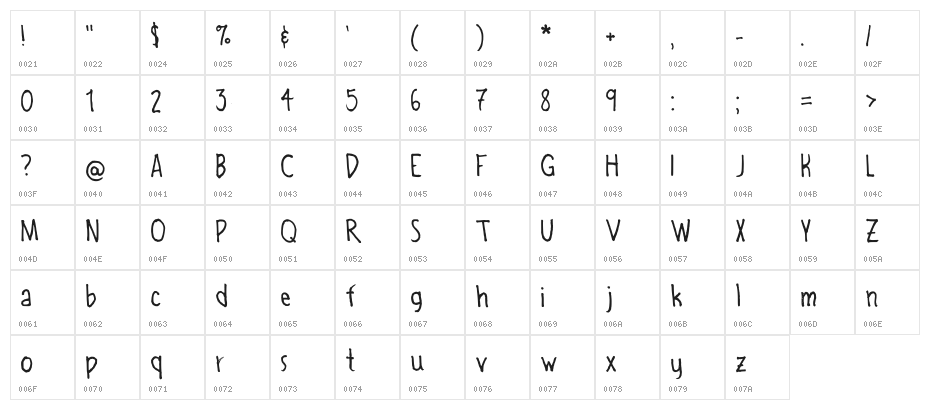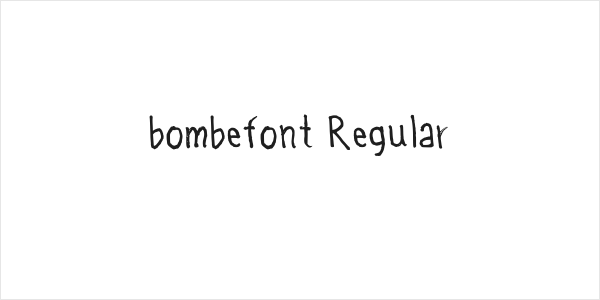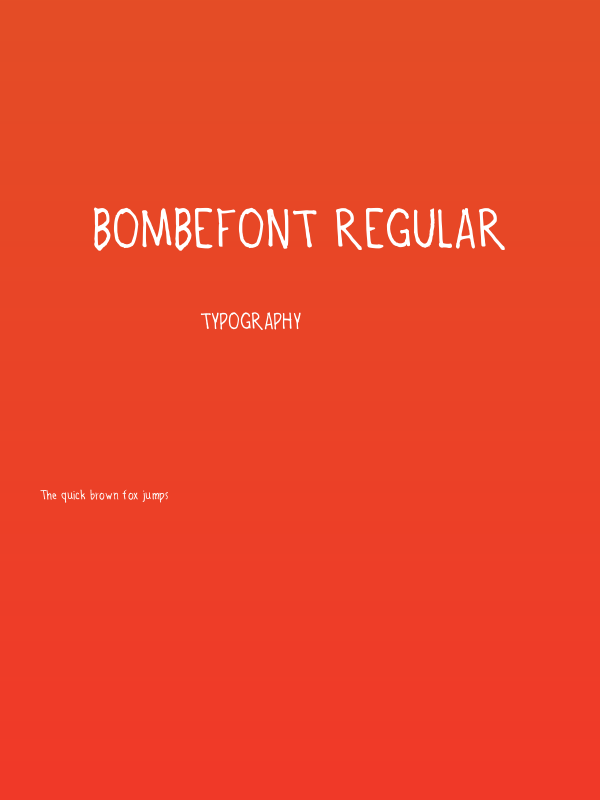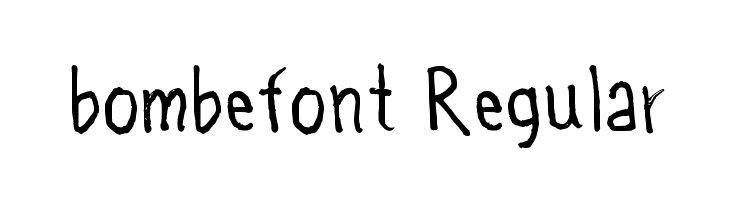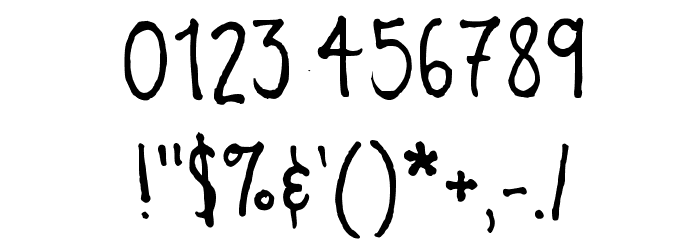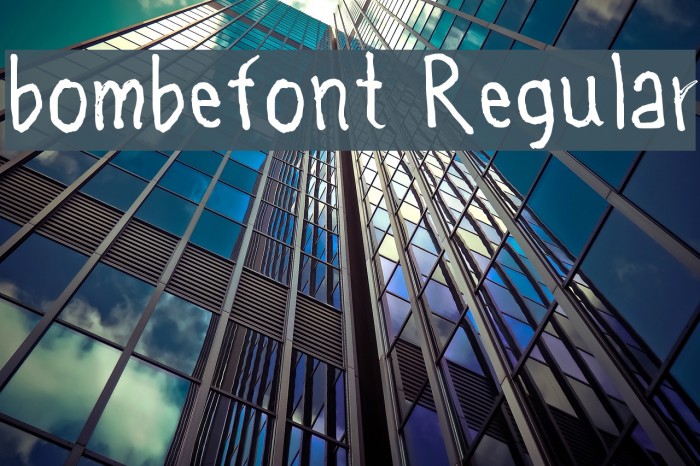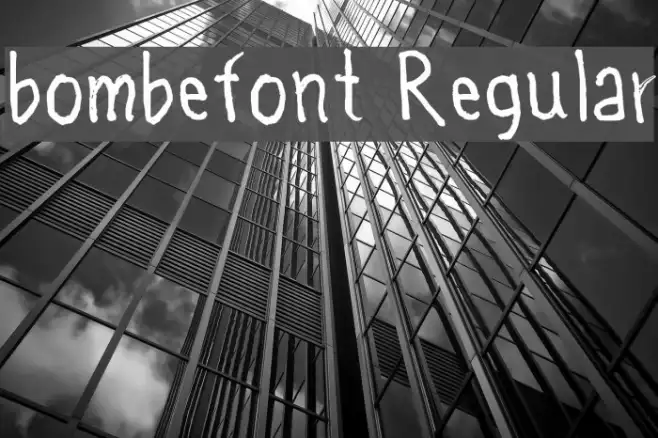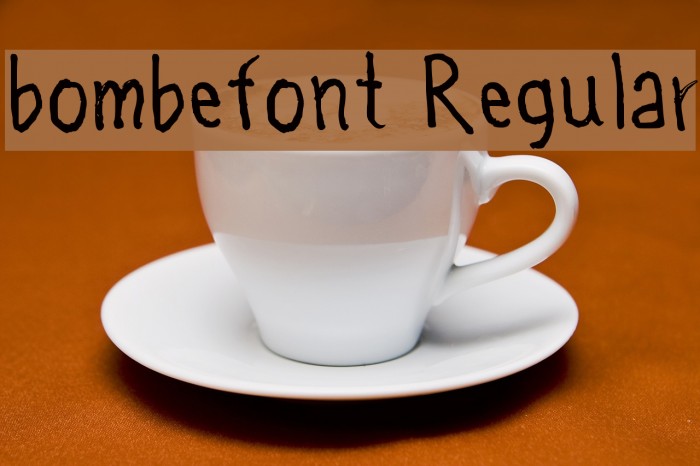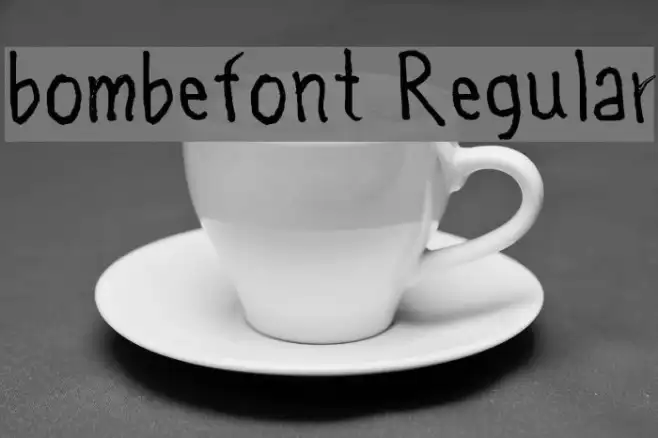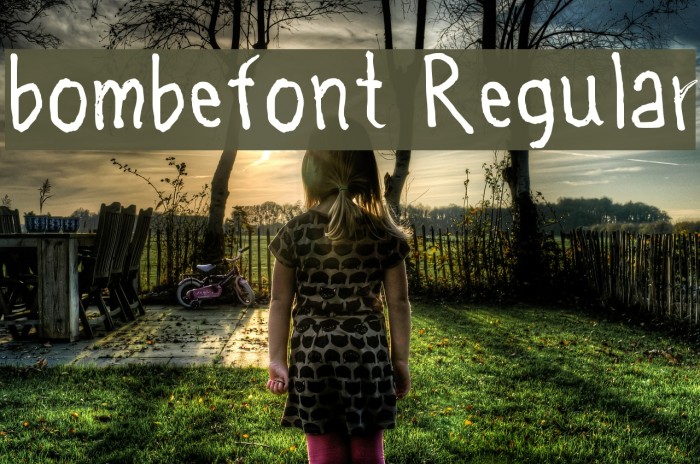
bombefont Regular Font
bombefont Regular Description
This font features a playful and informal handwritten style, characterized by its uneven strokes and slightly irregular letterforms. The uppercase and lowercase letters maintain a consistent flow, giving it a casual and approachable appearance. The numerals and special characters follow the same whimsical design, making it suitable for projects that require a personal touch. The font's organic feel is enhanced by its slightly varied line thickness, which adds to its charm and uniqueness.